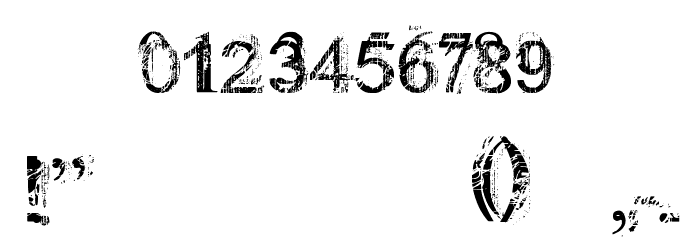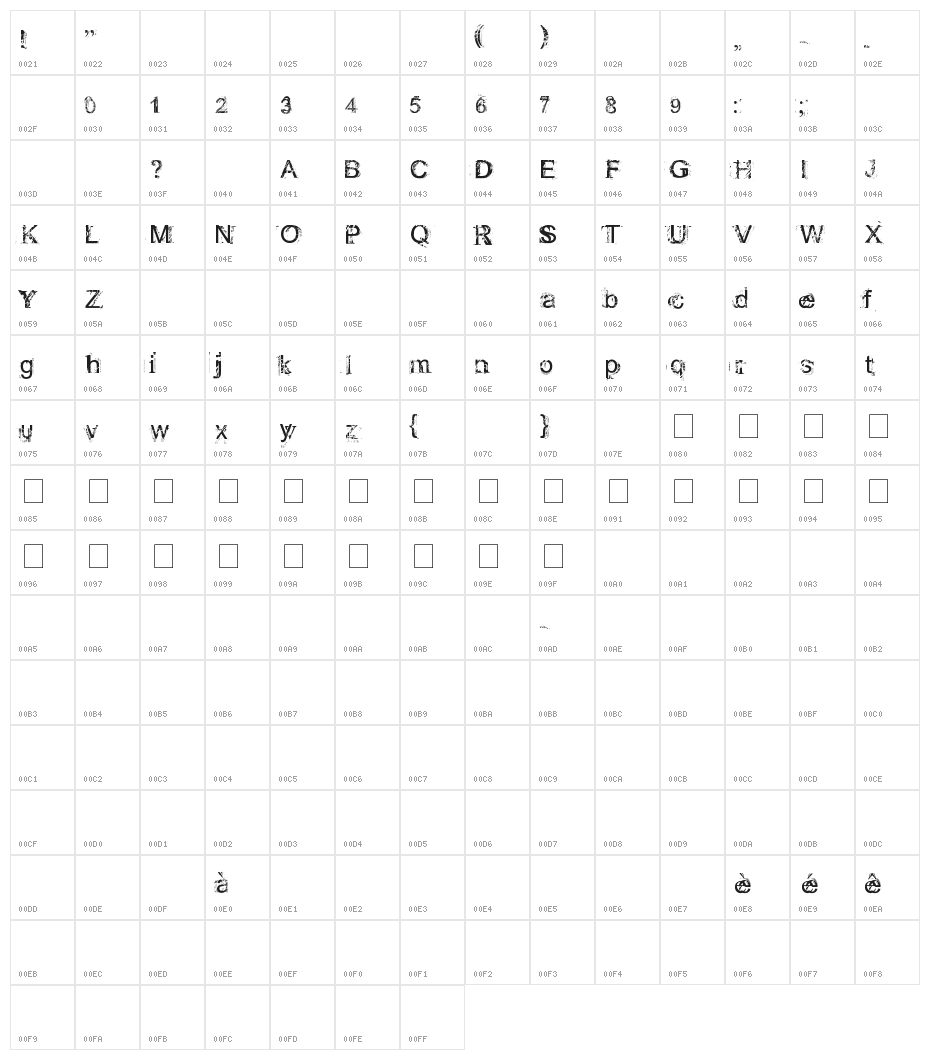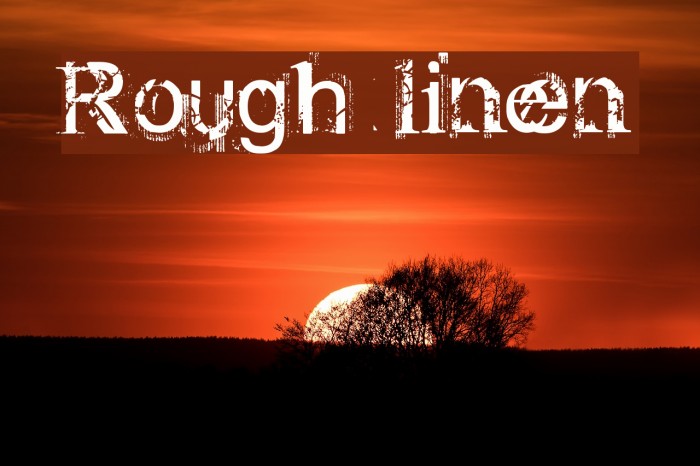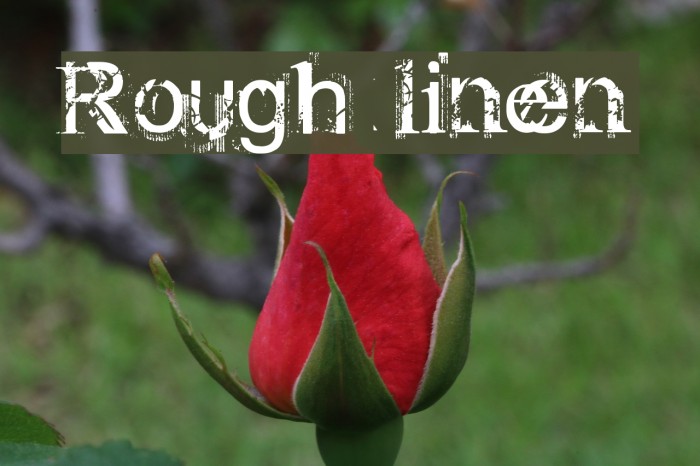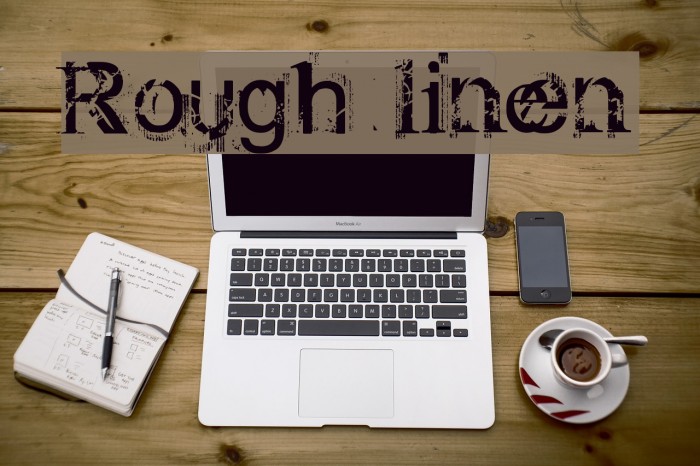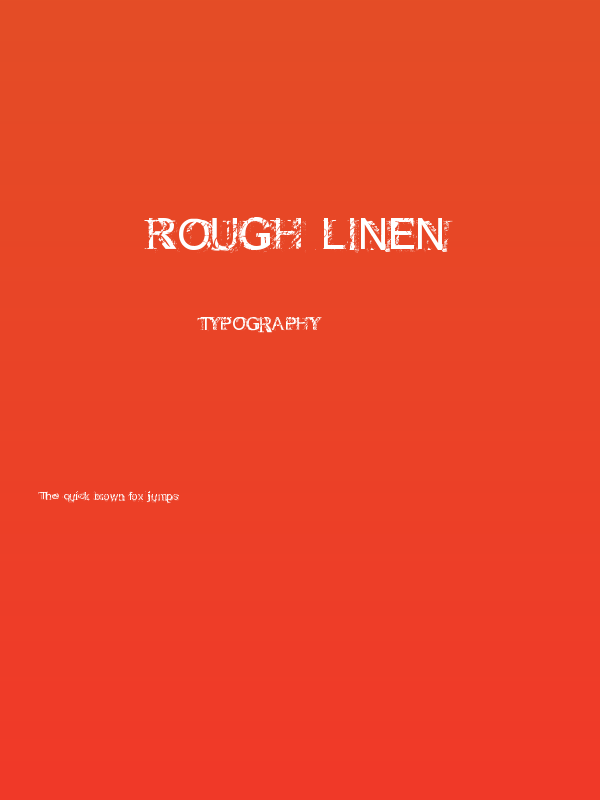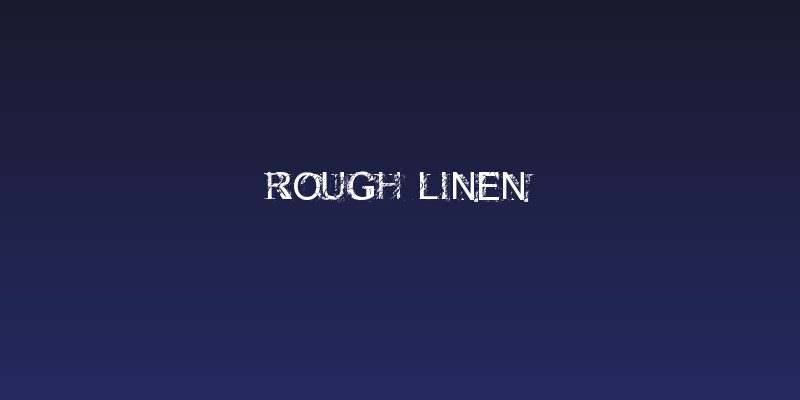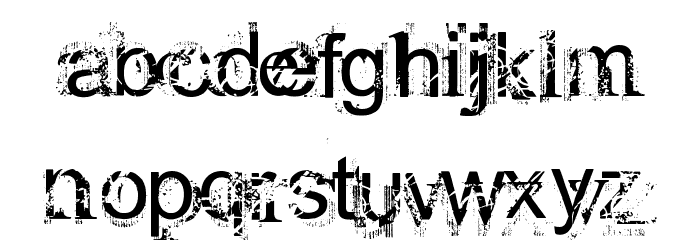
Rough linen Font
Rough linen Description
This font features a distressed, textured appearance that gives it a rugged, worn look. The characters are bold and have a rough, grunge style that suggests a sense of age and weathering. The uppercase and lowercase letters maintain a consistent design, with jagged edges and an uneven surface that adds to the font's unique character. The numbers and special characters follow the same aesthetic, making the font cohesive across all elements. This style is reminiscent of vintage or industrial themes, making it suitable for projects that require a gritty, authentic feel.
| Overall Style | Vintage, Grunge |
| Proposed Projects | Ideal for album covers, posters, branding for rustic or industrial-themed businesses, and any design needing a vintage or edgy look. |